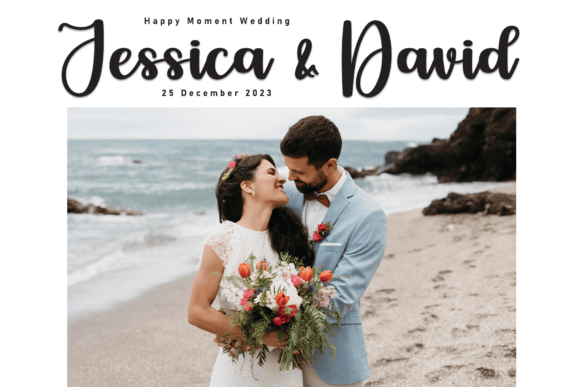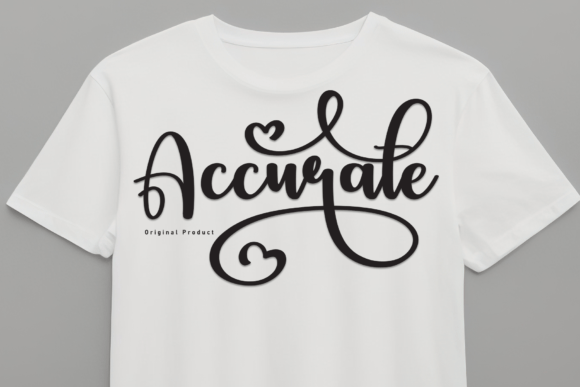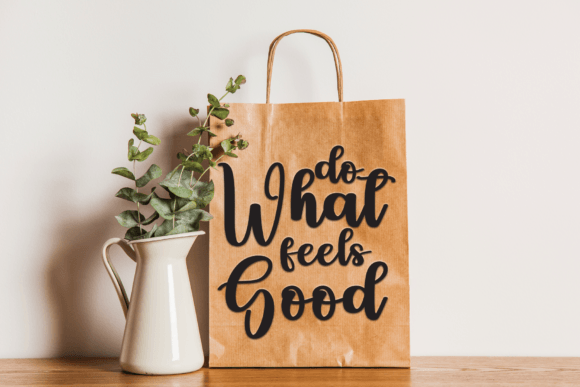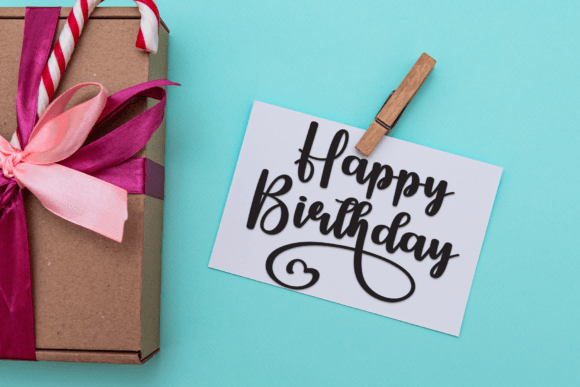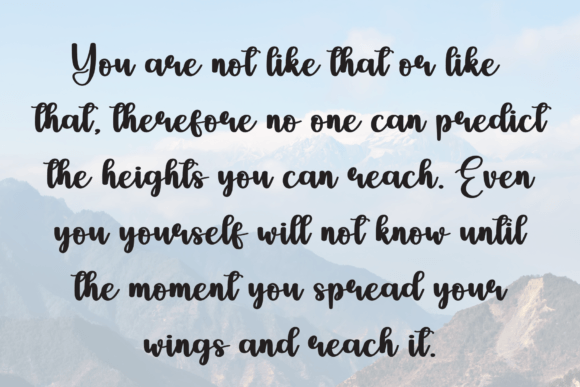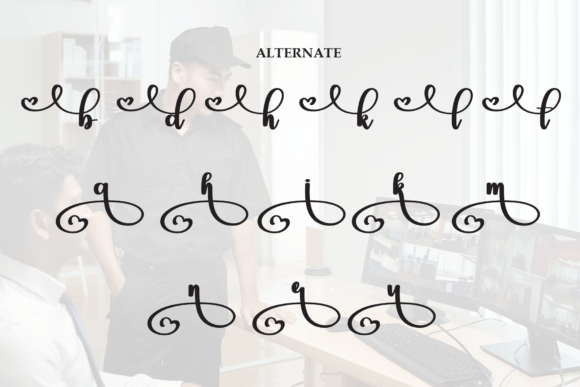
Introducing Guarder Font: The Sweet and Friendly Handwritten Font for Your Creative Projects
Are you a designer, crafter, or DIY enthusiast looking for a font that can add a personal touch to your projects? Look no further than Guarder Font, a sweet and friendly handwritten font that’s perfect for a wide range of designs. With its natural and unique style, Guarder Font is incredibly versatile and can be used in various creative projects, from digital designs to handmade crafts.
What Makes Guarder Font Special?
Guarder Font is a one-of-a-kind handwritten font that’s designed to bring a touch of warmth and personality to your designs. Its natural and unique style makes it stand out from other fonts, and its friendly vibe makes it perfect for projects that require a personal touch. Whether you’re creating digital designs, such as social media graphics, blog posts, or website headers, or working on handmade crafts, like invitations, cards, or scrapbooking projects, Guarder Font is the perfect choice.
The Versatility of Guarder Font
The best part about Guarder Font is its incredible versatility. Its unique style makes it fitting for a large pool of designs, and the only limit is your imagination! Here are some ideas to get you started:
- Digital Designs: Use Guarder Font to create stunning social media graphics, blog posts, website headers, and more. Its friendly vibe makes it perfect for creating engaging and interactive digital content.
- Handmade Crafts: Add a personal touch to your handmade crafts, such as invitations, cards, scrapbooking projects, and DIY home decor. Guarder Font is perfect for creating unique and personalized gifts.
- Branding and Packaging: Use Guarder Font to create custom branding and packaging for your business or product. Its unique style makes it perfect for standing out in a crowded market.
Why Choose Guarder Font?
So, why choose Guarder Font for your creative projects? Here are just a few reasons:
- Unique Style: Guarder Font has a one-of-a-kind style that’s sure to make your designs stand out.
- Easy to Read: Despite its unique style, Guarder Font is incredibly easy to read, making it perfect for digital and print designs.
- Versatile: Guarder Font can be used in a wide range of designs, from digital designs to handmade crafts.
- Personal Touch: Guarder Font adds a personal touch to your designs, making them more engaging and interactive.
Tips for Using Guarder Font
Here are some tips for using Guarder Font in your creative projects:
- Experiment with Colors: Guarder Font looks great in a variety of colors, so don’t be afraid to experiment and find the perfect color scheme for your design.
- Mix and Match: Mix and match Guarder Font with other fonts to create a unique and visually appealing design.
- Keep it Simple: Don’t overcomplicate your design. Keep it simple and let Guarder Font shine.